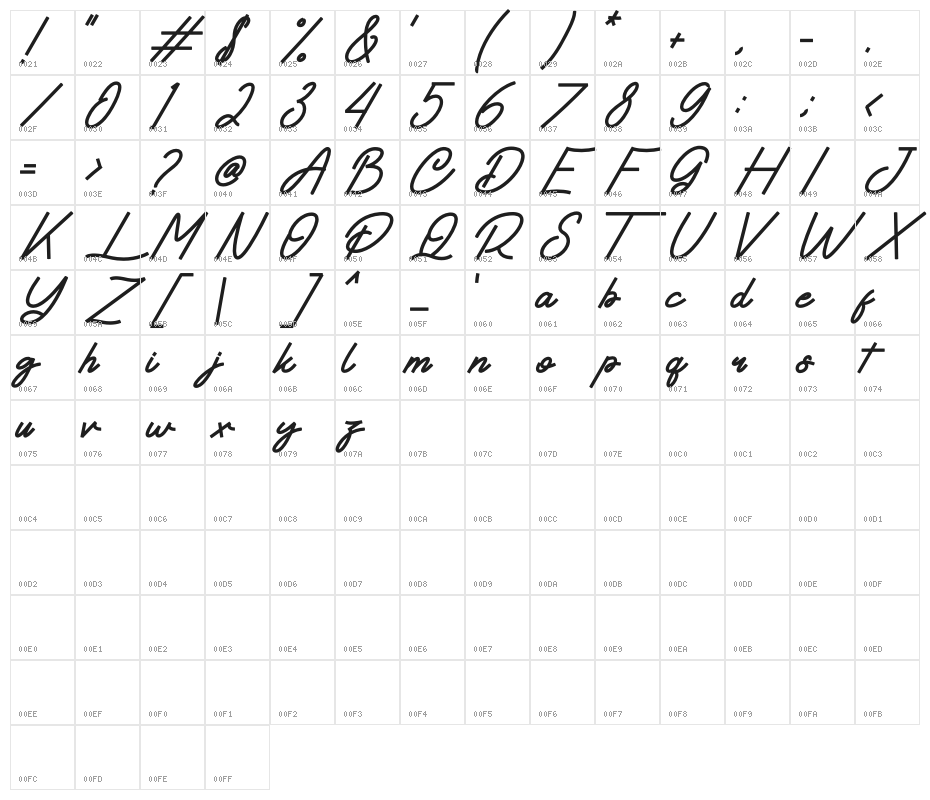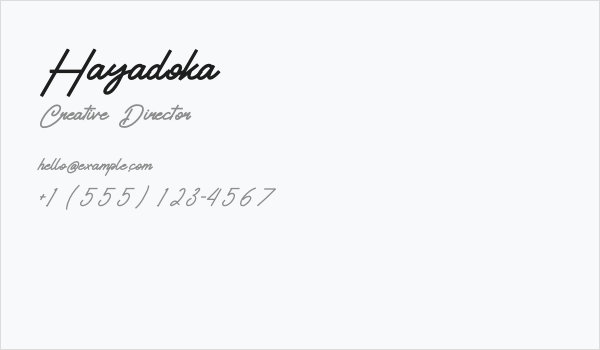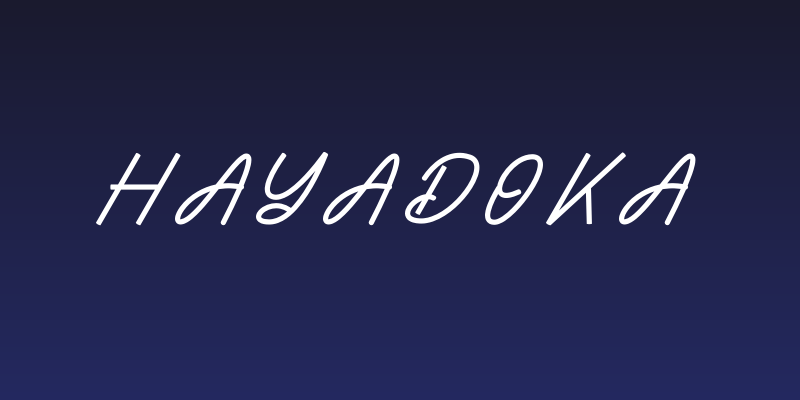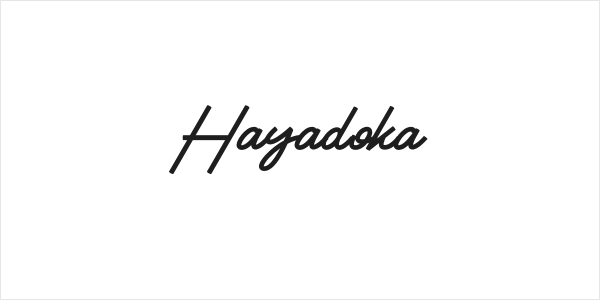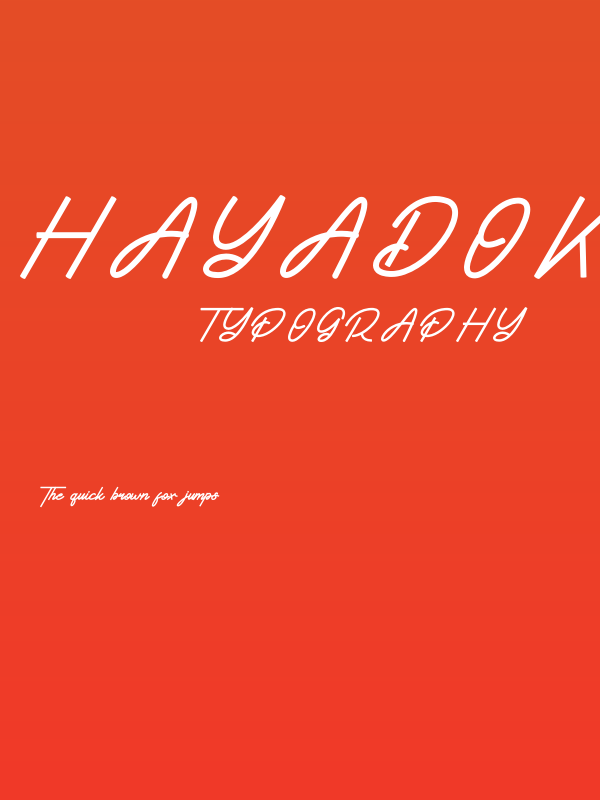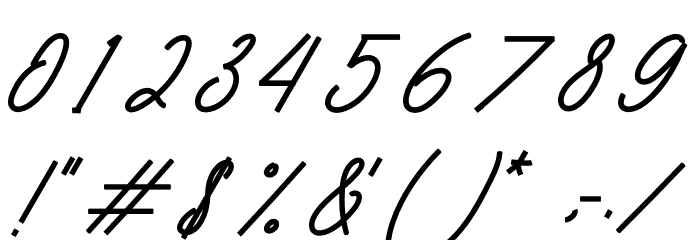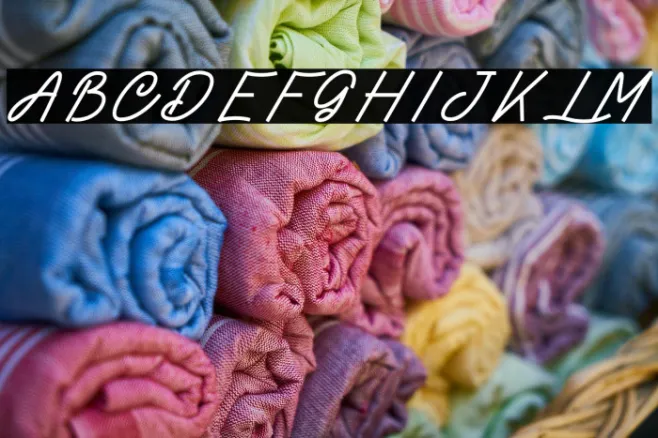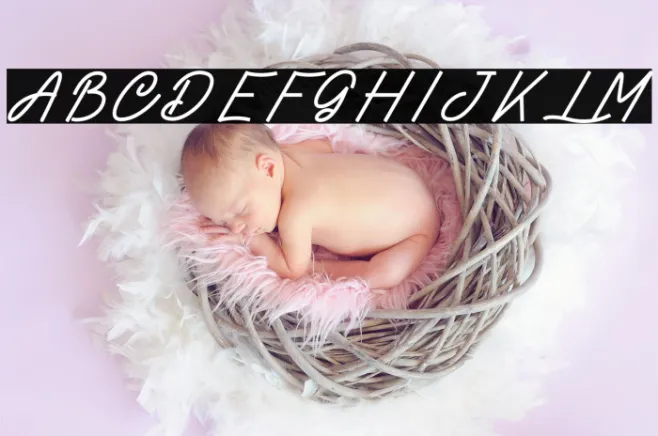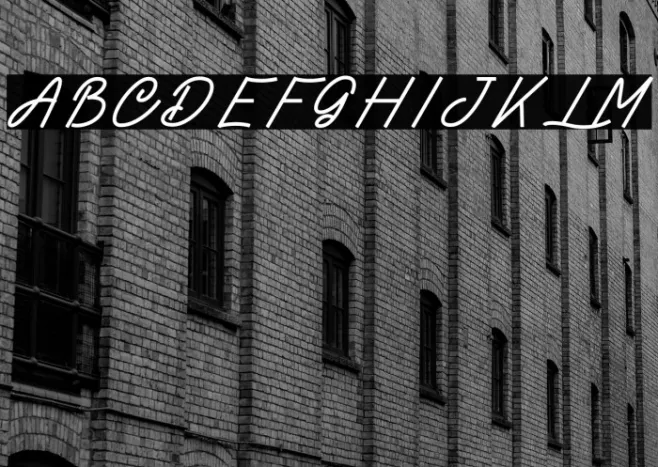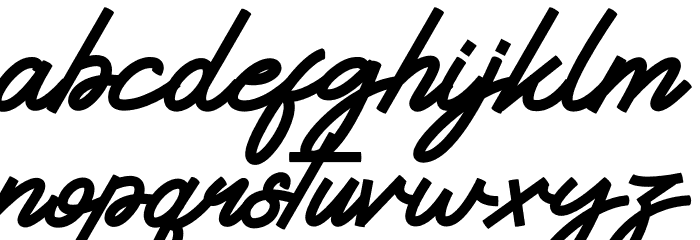
Hayadoka Font
Hayadoka Description
This font features a dynamic and flowing script style, combining both uppercase and lowercase letters with a sense of elegance and fluidity. The uppercase letters are slender and slightly slanted, giving a sense of movement and grace. The lowercase letters are bold and more pronounced, with a thicker stroke that adds a sense of boldness and emphasis. The numerals maintain the slender and slanted style of the uppercase letters, providing a cohesive look across all characters. Special characters are included, maintaining the same stylistic elements, ensuring versatility in various design contexts. The overall appearance is both modern and classic, making it suitable for a wide range of applications.